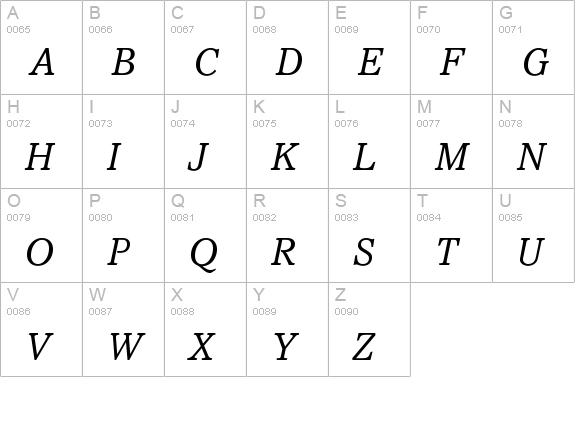
PacellaEF-BookItalic Font Details
PacellaEF-BookItalic is a stunning and elegant font that exudes a sense of sophistication and class. Its sleek and flowing curves add a touch of gracefulness to any project, making it perfect for both print and digital design. With its italic style, PacellaEF-BookItalic brings a unique and distinctive flair to your typography. Whether you're designing a logo, creating a website, or crafting a magazine layout, this font is sure to captivate and engage your audience. What sets PacellaEF-BookItalic apart is its versatility. It is suitable for a wide range of design purposes, from formal invitations and event posters to branding materials and advertising campaigns. Its legibility and readability ensure that your message is conveyed clearly and effectively. But what makes PacellaEF-BookItalic even more remarkable is that it is freely available to download at FontsMarket.com. This means that you can enhance your design projects without worrying about any additional costs. Simply visit FontsMarket.com and access this incredible font to elevate your creations to new heights. So why wait? Add a touch of sophistication and elegance to your designs with PacellaEF-BookItalic. Download it for free at FontsMarket.com and let your creativity shine.